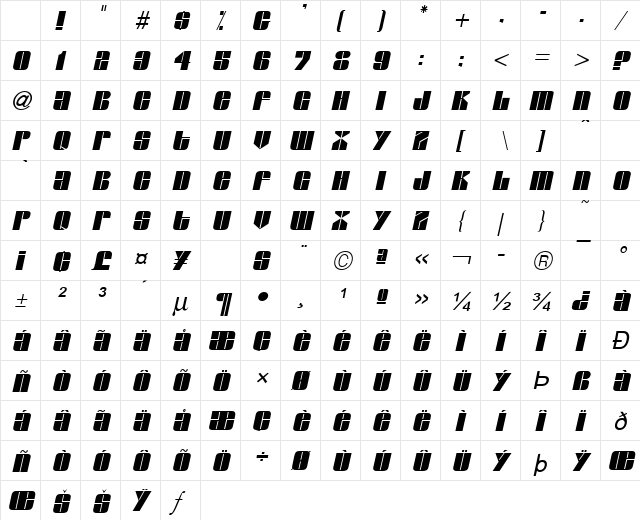
Glaze is a composed and adaptable typeface that performs quietly and consistently across a wide range of design contexts. The slanted form adds forward momentum and visual energy.
Pro Tip: Use Glaze for emphasis, pull quotes, and subheadings where its slanted energy can add rhythm to the layout.